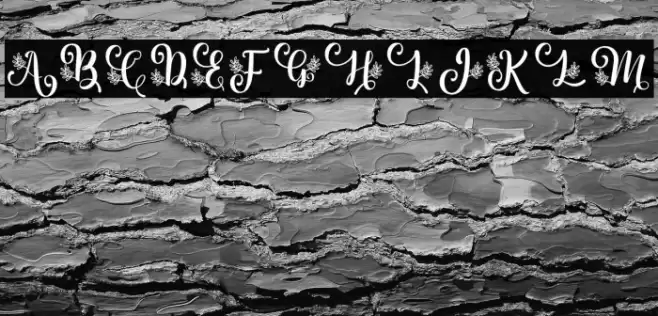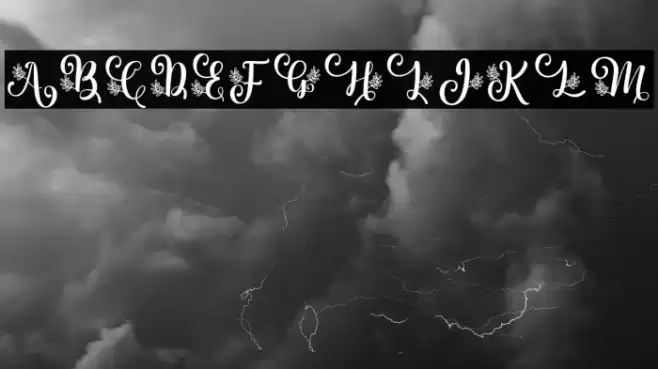
Albanian Olive Monogram 2 Font
Albanian Olive Monogram 2 Description
This font features an elegant and decorative style, characterized by intricate floral embellishments that accompany each letter. The uppercase letters are bold and ornate, with flowing curves and a sense of grandeur. The lowercase letters maintain the same decorative flair, ensuring consistency throughout the typeface. The inclusion of floral motifs adds a touch of nature-inspired beauty, making it ideal for projects that require a sophisticated and artistic touch. The font's unique style is perfect for creating monograms, wedding invitations, and other formal documents where a touch of elegance is desired.
An ornate, floral-decorated font ideal for elegant and artistic projects from Uncategorized fonts.
- Font: Albanian Olive Monogram 2
- Proposed Projects: Monograms, wedding invitations, formal event programs, luxury branding.
- Use Case: Logos, Invitations, Headlines